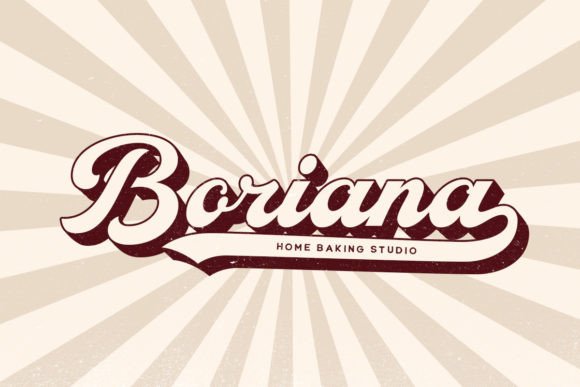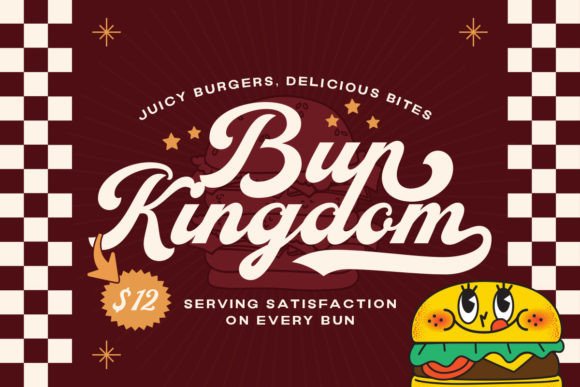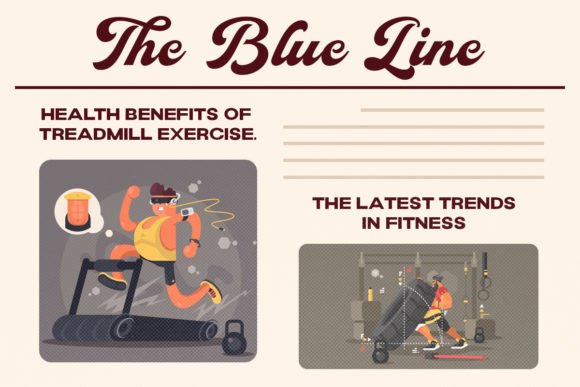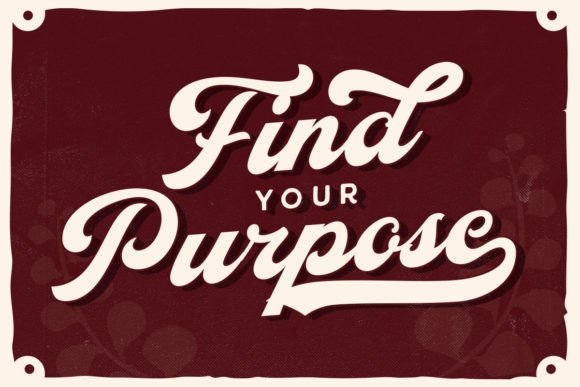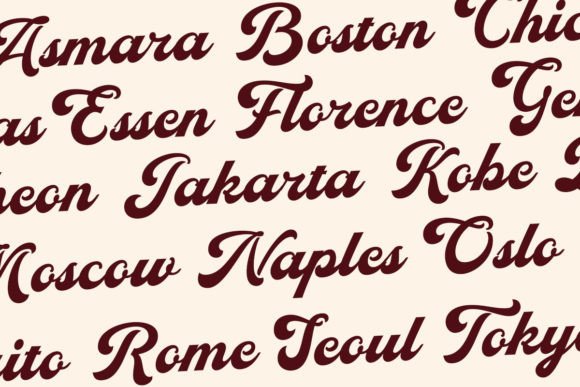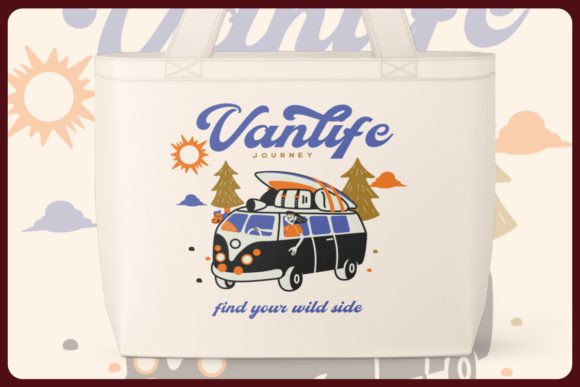
Introduction to Midesto Font
Introducing Midesto, a versatile script font that embodies classic and vintage-inspired typeface adds a touch of timeless charm to any design.
Whether youโre working on branding projects, signage, or packaging,and the other various formal forms such as invitations, labels, logos, or any type of advertising purpose this font is your go-to choice for creating a memorable and distinct visual experience .
Key Features of Midesto Font
Why Choose Midesto Font?
Midesto Font offers exceptional quality and versatility, making it a valuable addition to your design toolkit. Whether you’re creating for personal projects or commercial use, Midesto Font delivers professional results.